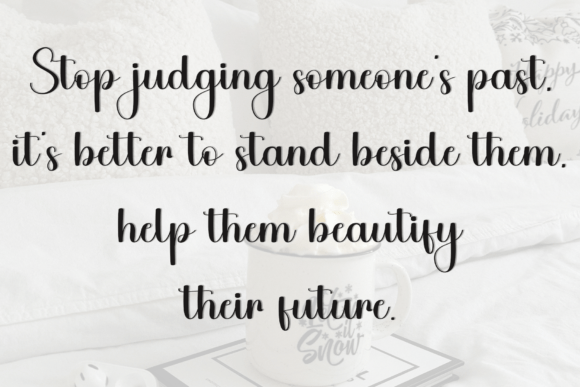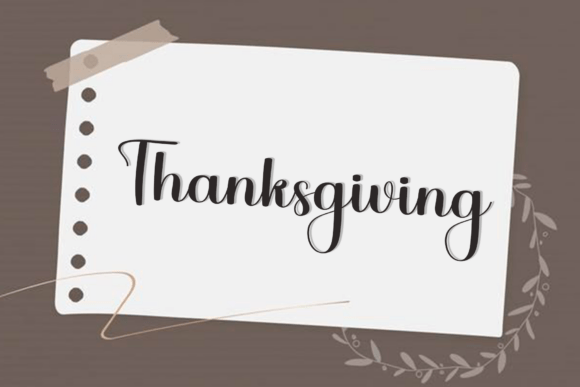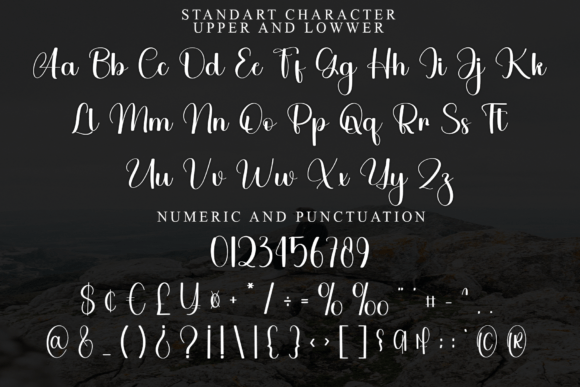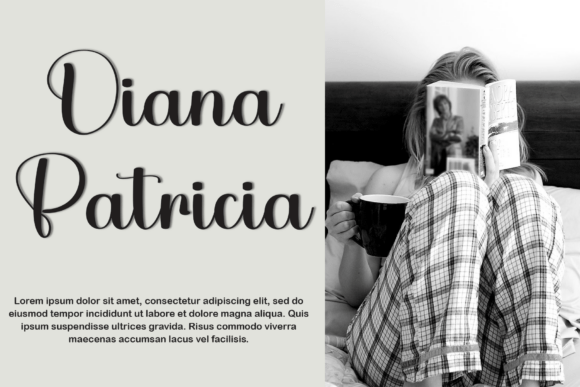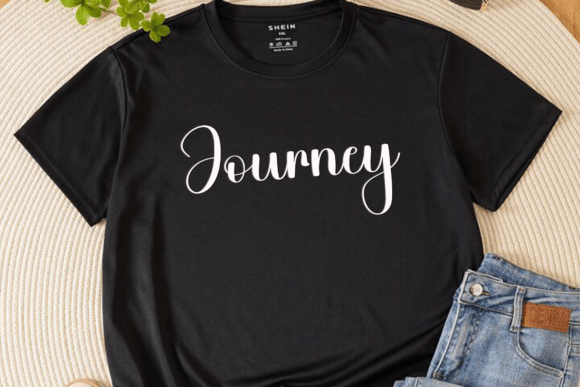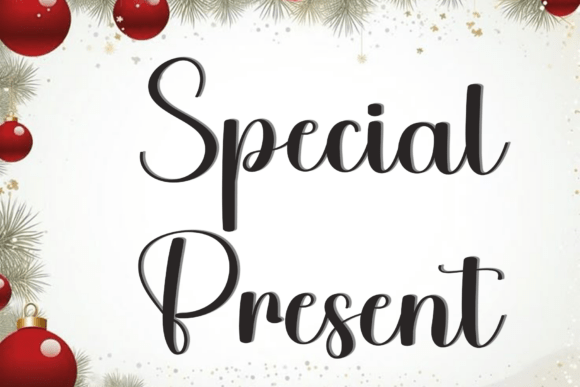
Introduction to Polite Font
As a designer, there’s nothing quite like the thrill of bringing a creative project to life. The click of the mouse, the glow of the screen, and the sense of wonder that comes with watching your ideas take shape. For many of us, the holiday season is a time of joy and magic, and what better way to capture that spirit than with the perfect font?
Enter Polite Font, a festive and merry typeface that adds a touch of enchantment to your designs. With its decorative elements and whimsical flair, this font is the perfect addition to any holiday-themed project. Whether you’re creating greeting cards, gift tags, or simply want to add a little extra cheer to your designs, Polite Font is a valuable resource that’s sure to bring a smile to your face.
Key Features of Polite Font
- High-quality design: This font features crisp and clear letters, ideal for various design applications.
- Large character set: The font includes a wide range of characters, including uppercase and lowercase letters, numbers, and symbols.
- Perfect for creative projects: This font is ideal for use in logos, branding, and other design elements where a unique and elegant look is required.
Honest Review: Polite Font
As a designer, I’m always on the lookout for high-quality design resources that can elevate my creative projects. Recently, I had the chance to work with the Polite Font, and I must say, it’s been a pleasant experience.
- Wide range of applications: From business cards to website headers, the Polite Font is perfect for any creative project.
- High-quality design: The font’s crisp lines and clear typography make it a standout in any design.
Limitations: ⚠️ While the Polite Font is incredibly versatile, it may not be the best choice for projects that require a bold, attention-grabbing font. Additionally, some users may find the font’s design a bit too minimalist for their taste.
Getting the Most Out of Polite Font
For optimal results, use the Polite Font in conjunction with other design resources, such as graphics and images. Experiment with different font sizes, colors, and alignments to create visually appealing designs. This versatile font is perfect for a variety of creative projects, from presentations to documents.
The Polite Font is ideal for use in creative projects, such as: